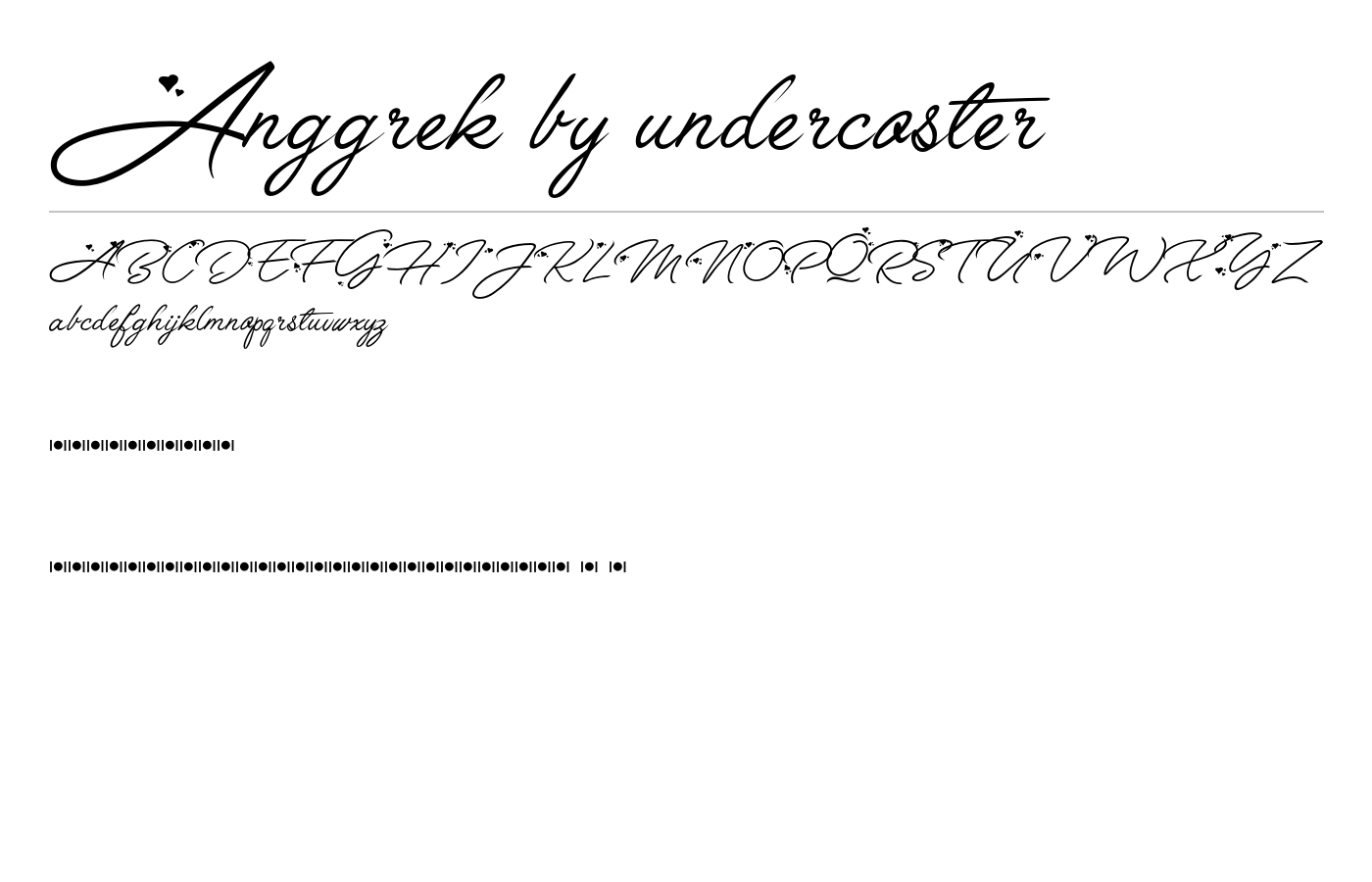
Anggrek by undercoster is an elegant, script-style font with smooth, flowing lines and delicate letterforms that convey a sense of romance and sophistication. Its light weight and handwritten feel make it perfect for wedding invitations, branding with a personal touch, or any design that needs a graceful and charming aesthetic. The font’s subtle heart details add a unique, whimsical flair that enhances its warm and inviting personality.
Anggrek by undercoster Font
About Anggrek by undercoster Font